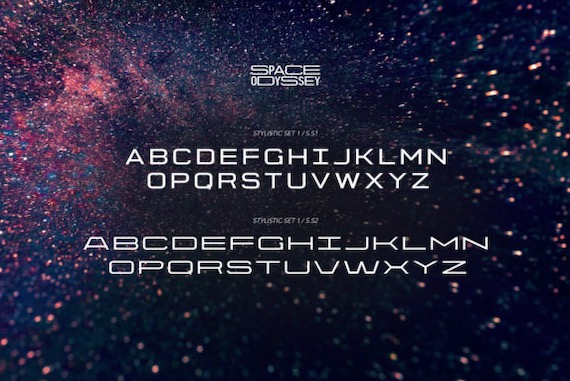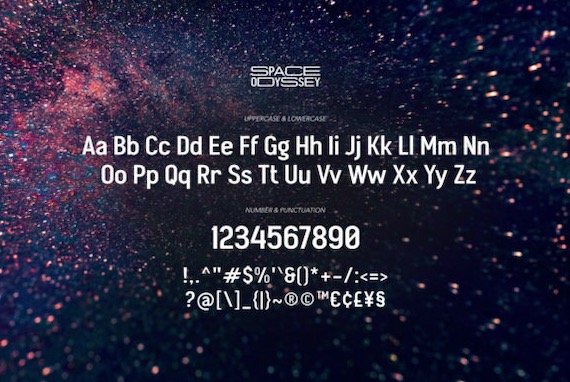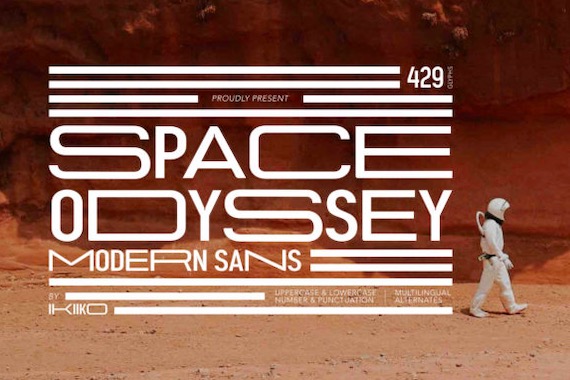
Space Odyssey Font is a modern and cool looking sans serif typeface that was created and shared by Ikiiko. This techno font is very perfect for any branding project such as logos, t-shirt printing, creative products, and more.
Space Odyssey Sans Serif Font